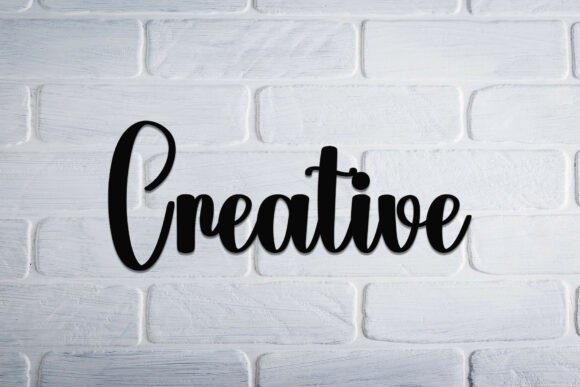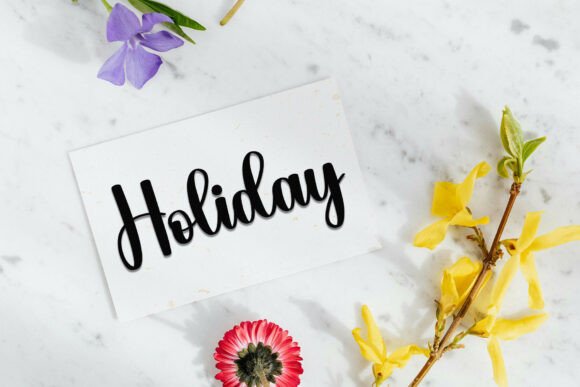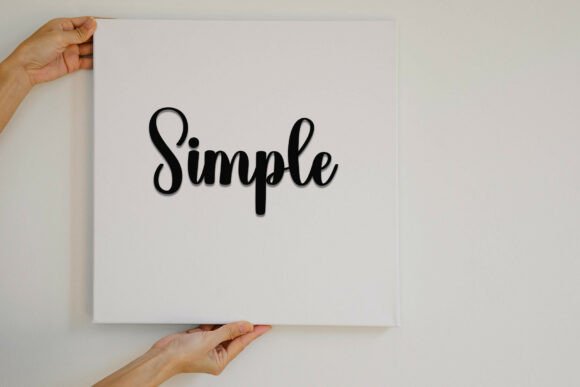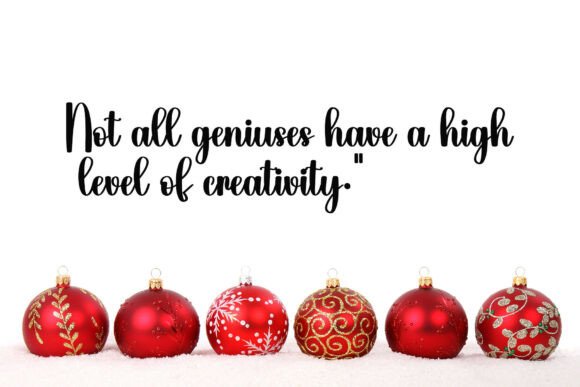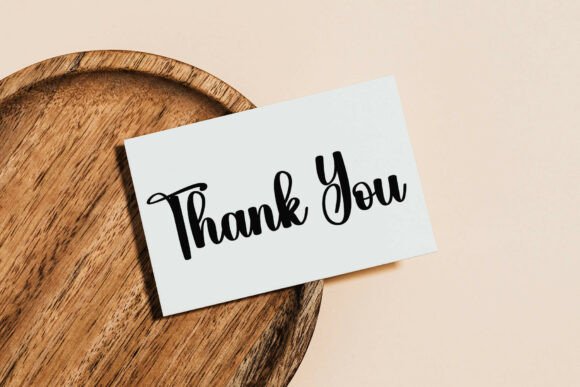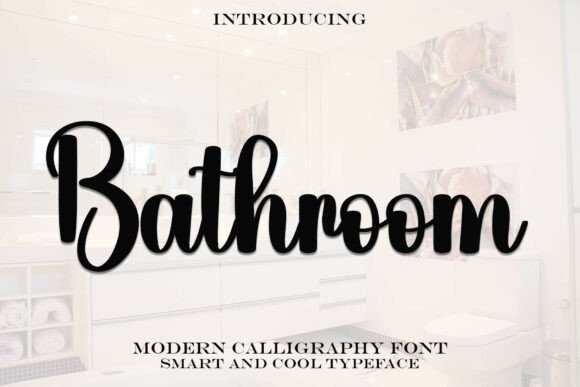
Bathroom Font: Elevate Your Design with Elegance and Class
In the world of typography, fonts play a crucial role in conveying the tone and aesthetic of a design project. For designers and crafters seeking to add a touch of sophistication and elegance to their work, the Bathroom Font is an excellent choice. This trendy handwritten font boasts a contemporary atmosphere and impeccable form, drawing inspiration from timeless classic calligraphy.
The Inspiration Behind Bathroom Font
The Bathroom Font is a masterful blend of traditional calligraphy and modern design sensibilities. Its creators sought to craft a font that would evoke the luxury and refinement of classic calligraphy, while still feeling fresh and contemporary. The result is a font that is both nostalgic and forward-thinking, perfect for designers looking to add a touch of sophistication to their projects.
Key Features of Bathroom Font
- Trendy Handwritten Style: The Bathroom Font features a beautiful, handwritten style that adds a personal touch to any design project.
- Contemporary Atmosphere: With its clean lines and elegant curves, this font exudes a sense of modernity and sophistication.
- Impeccable Form: The Bathroom Font is meticulously crafted to ensure that every letter and character is perfect in form and function.
- Timeless Classic Calligraphy Inspiration: The font’s inspiration from classic calligraphy gives it a timeless quality that will never go out of style.
Uses for Bathroom Font
The Bathroom Font is incredibly versatile, making it suitable for a wide range of design projects. Here are just a few ideas to get you started:
- Wedding Invitations and Stationery: Add a touch of elegance and sophistication to your wedding invitations, save-the-dates, and other stationery with the Bathroom Font.
- Branding and Packaging: Use the Bathroom Font to create luxurious and high-end branding and packaging for your clients or your own business.
- Signage and Displays: The Bathroom Font is perfect for creating eye-catching signage and displays that require a touch of class and sophistication.
- Digital and Print Media: Use the Bathroom Font in digital and print media, such as magazines, brochures, and advertisements, to add a touch of elegance and refinement.
Tips for Using Bathroom Font
To get the most out of the Bathroom Font, here are a few tips to keep in mind:
- Pair with Neutral Colors: Pair the Bathroom Font with neutral colors, such as black, white, and gray, to let the font’s elegance shine through.
- Experiment with Font Sizes: Experiment with different font sizes to create visual interest and hierarchy in your design.
- Use for Headings and Titles: Use the Bathroom Font for headings and titles to add a touch of sophistication and elegance to your design.
In conclusion, the Bathroom Font is a beautiful and elegant font that is perfect for designers and crafters seeking to add a touch of sophistication and refinement to their design projects. With its trendy handwritten style, contemporary atmosphere, and impeccable form, this font is sure to elevate your designs to the next level. Whether you’re working on a wedding invitation, branding project, or signage, the Bathroom Font is an excellent choice.